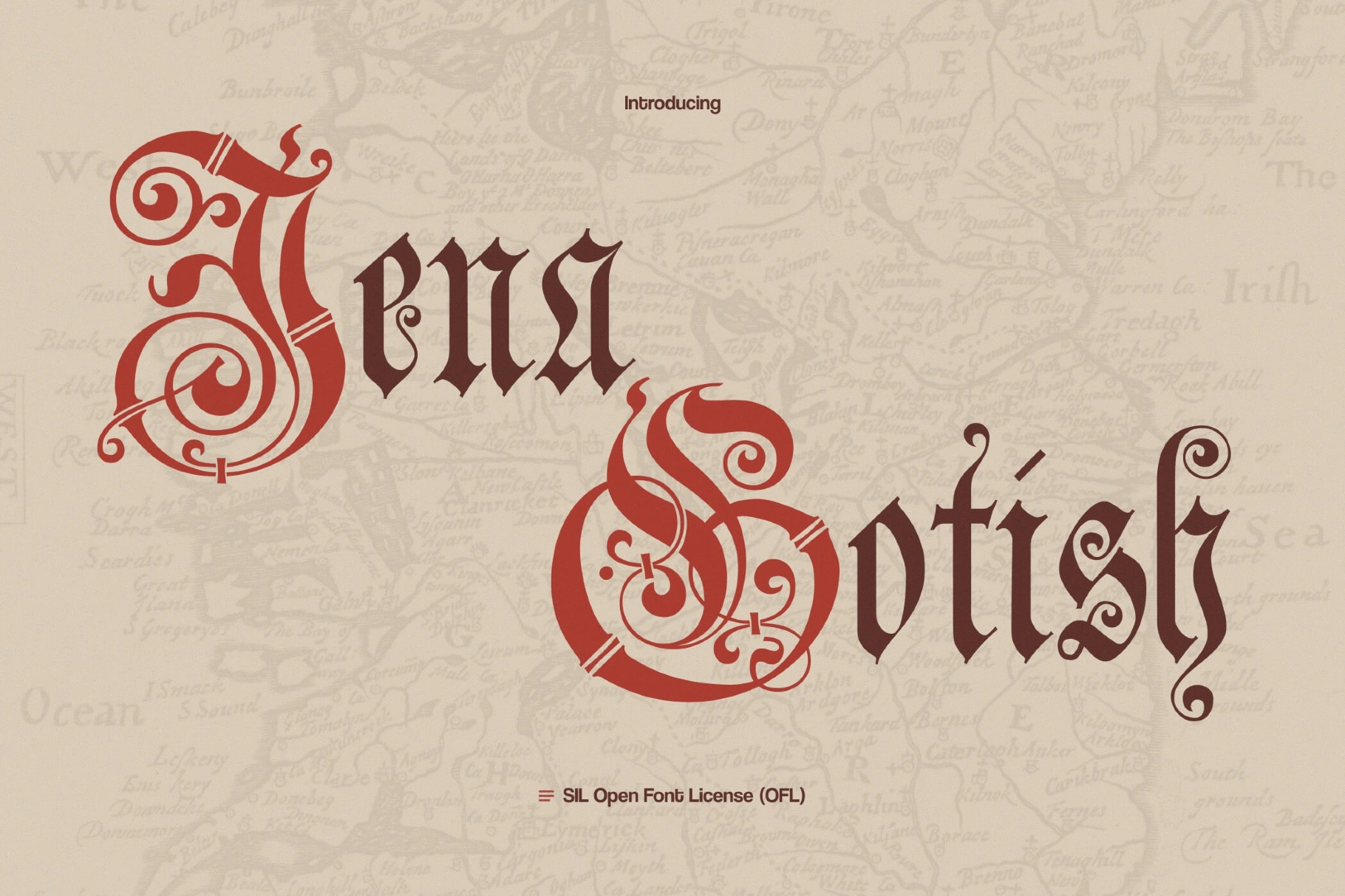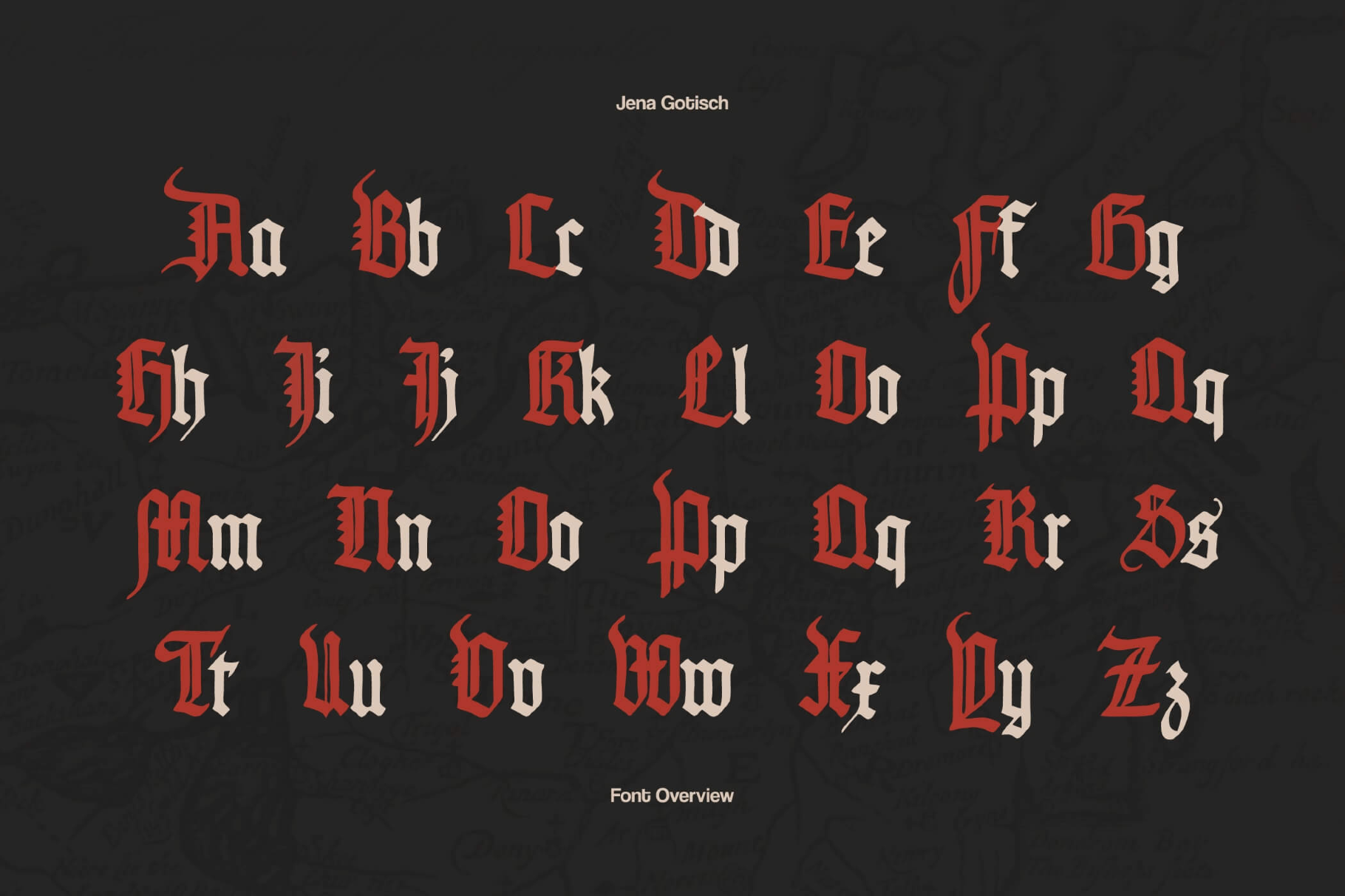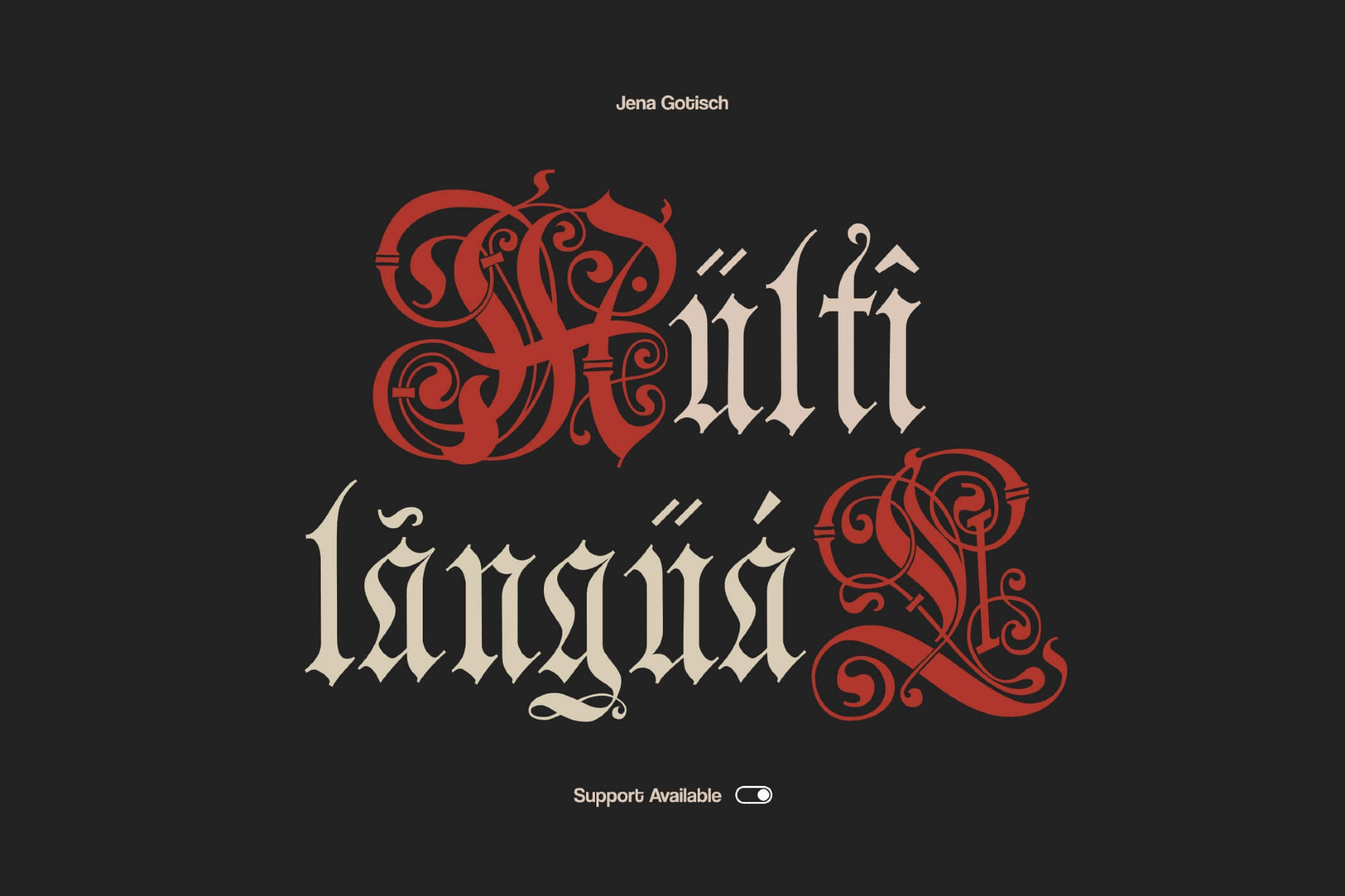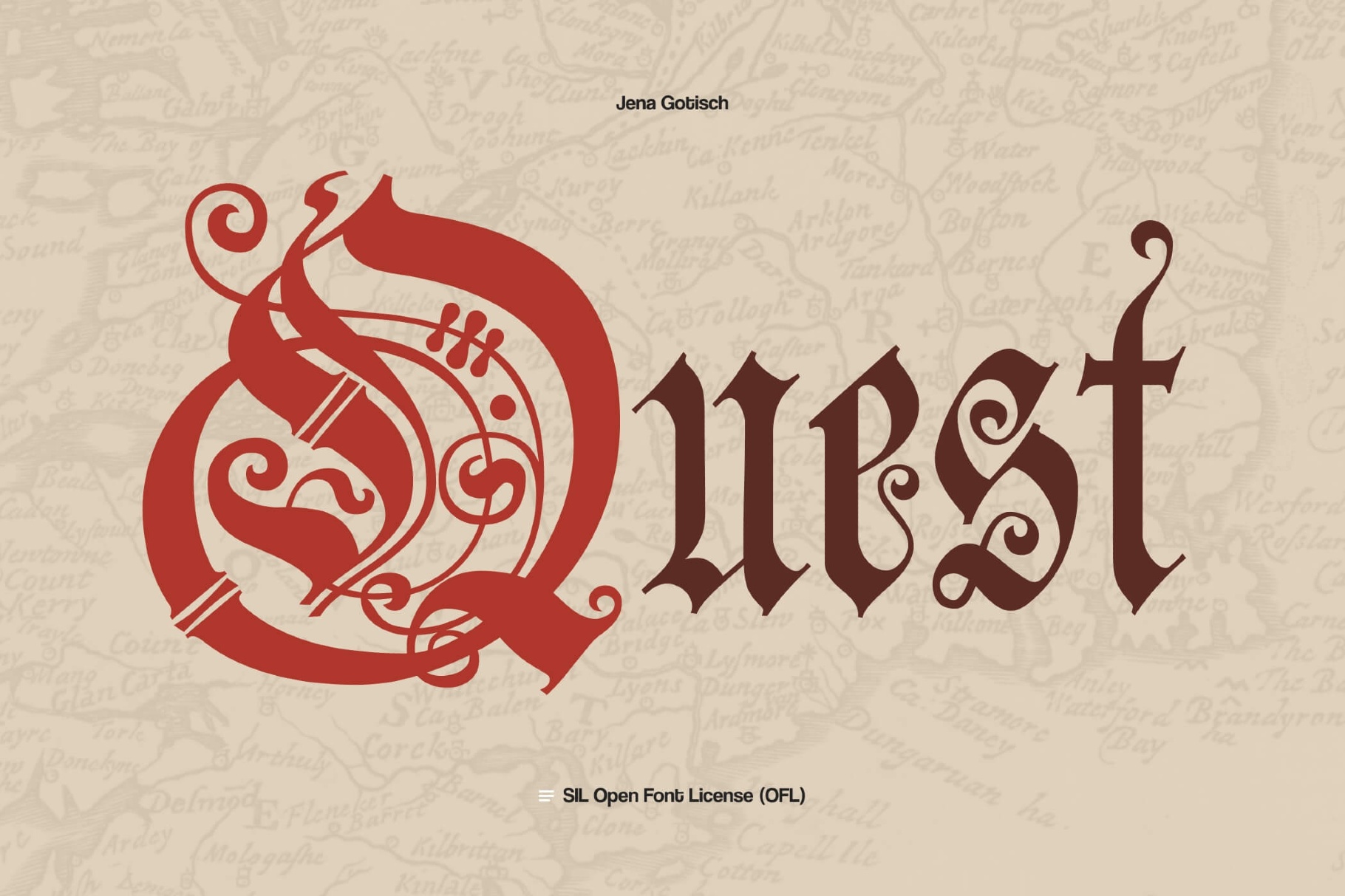
Jena Gothic Font
JenaGotisch
Jena Gotish pushes its capitals into full ornament mode. The character set combines dense blackletter structure with decorative inline strokes and filigree-style swashes, giving designers a toolkit for highly expressive initials and short headline phrases.
Swirling flourishes, looped terminals, and tiny teardrop details wrap around a sturdy blackletter skeleton, so each letter reads as a miniature monogram. You can drop them into heraldic-style logos, event or wedding wordmarks, chapter openings in illustrated books, title cards for music videos, ceremonial certificates, statement apparel graphics, and festive greeting cards.